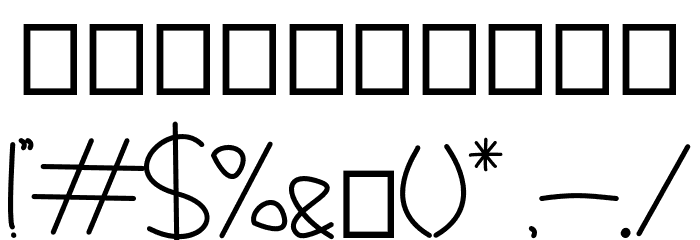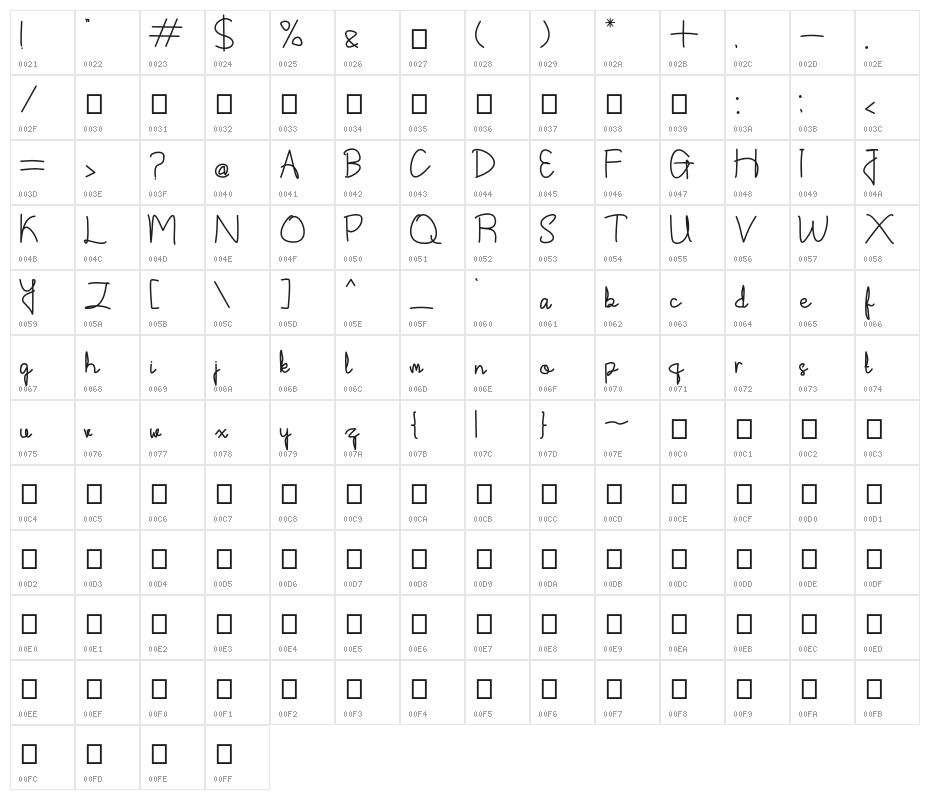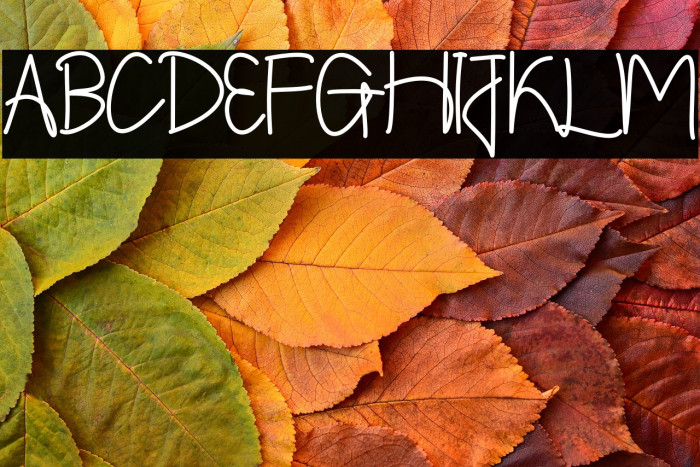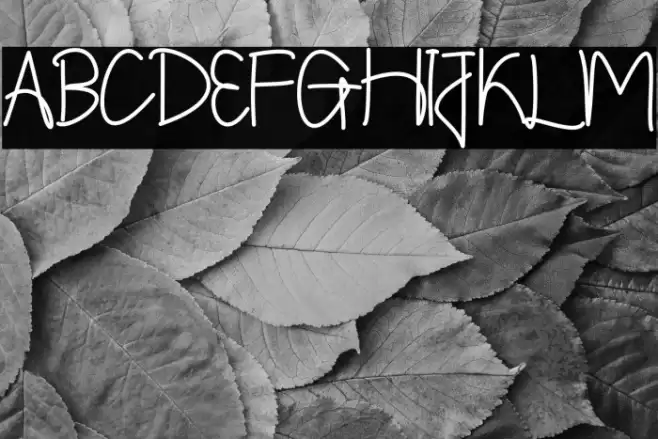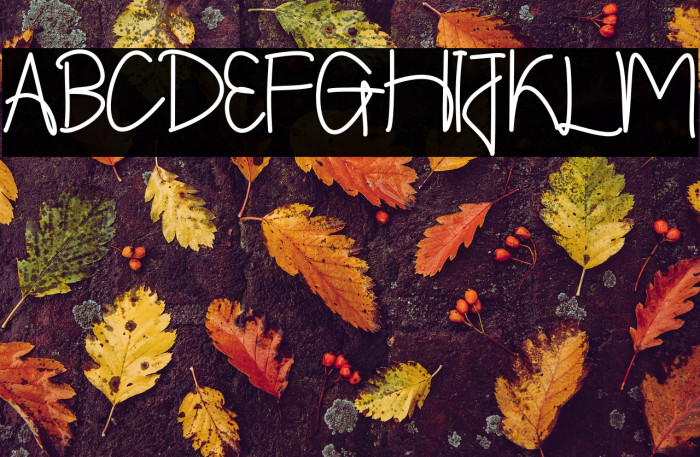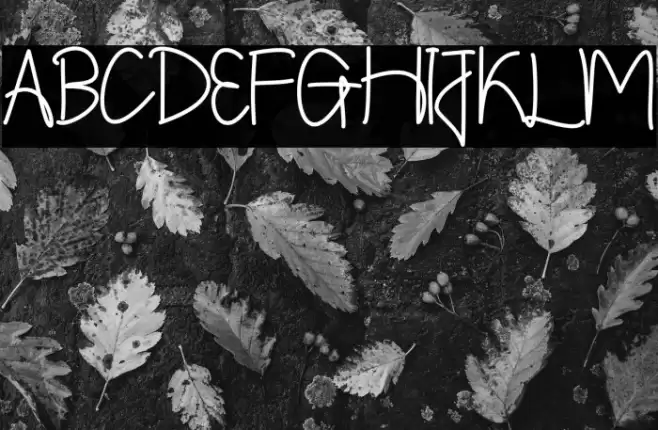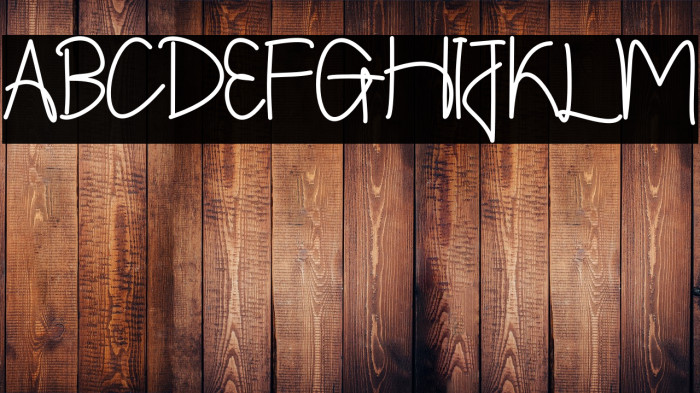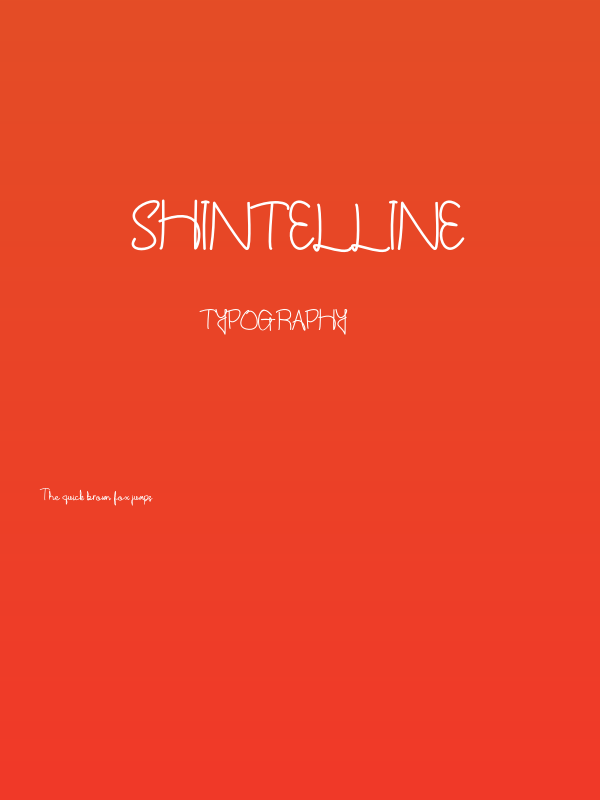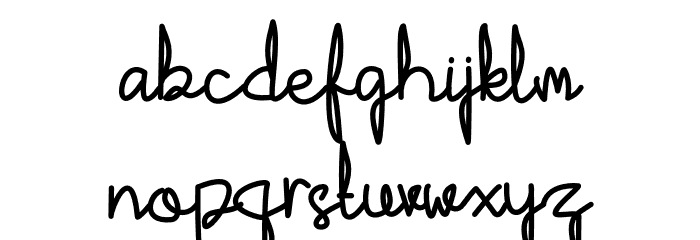
Shintelline Font
Shintelline Description
This font features a playful and whimsical handwritten style, characterized by its thin, flowing strokes and slightly irregular letterforms. The uppercase letters are tall and narrow, with a distinctive looped design that adds a touch of elegance. The lowercase letters maintain a consistent flow, enhancing the font's casual and approachable feel. The overall appearance is light and airy, making it suitable for projects that require a personal and informal touch. The special characters are crafted with the same attention to detail, ensuring a cohesive look across all elements.
Overall StyleCasual and Whimsical
Use CaseHeadlines, Creative projects, Personal branding
Proposed ProjectsIdeal for greeting cards, invitations, personal branding, and creative projects that require a whimsical touch.